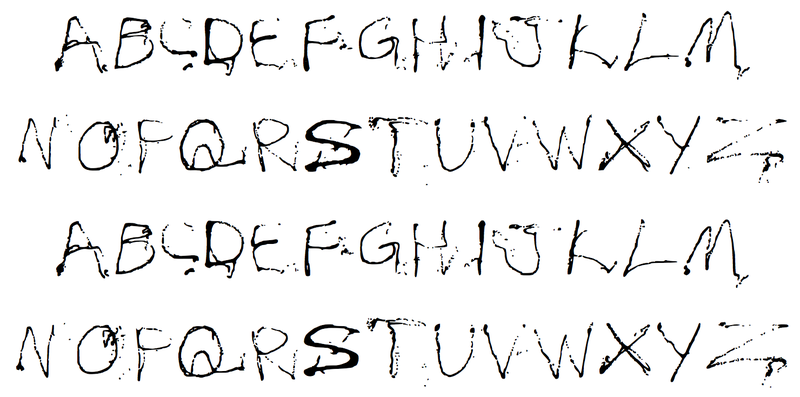
If you’ve been looking for that radical new typeface that will totally bring together than lackluster PowerPoint presentation, urine the wrong place. New York artist Aravindan Thirunavukarasu has created a typeface modeled after public pee graffiti.
The “Art of Peeing” was modeled after the artist’s own pee calligraphy on walls around the city. CityLab was able to catch up with the creator for a behind-the-scenes look at his masterpiece.
“Those pictures (above)…are real pictures which I took after I peed on the wall. My source of the pee was to drink a lot of gallons of water and I was on a liquid diet for the whole project. I got dehydrated after the project, though, I cleaned up after.”
Well, thank goodness for cleanliness. Thirunavukarasu describes his work as ‘grappeeti,’ a portmanteau of graffiti and the artist’s affinity for peeing on things. “I used to pee on the walls of my city so I thought why not create a font.” Yes, why not, indeed.